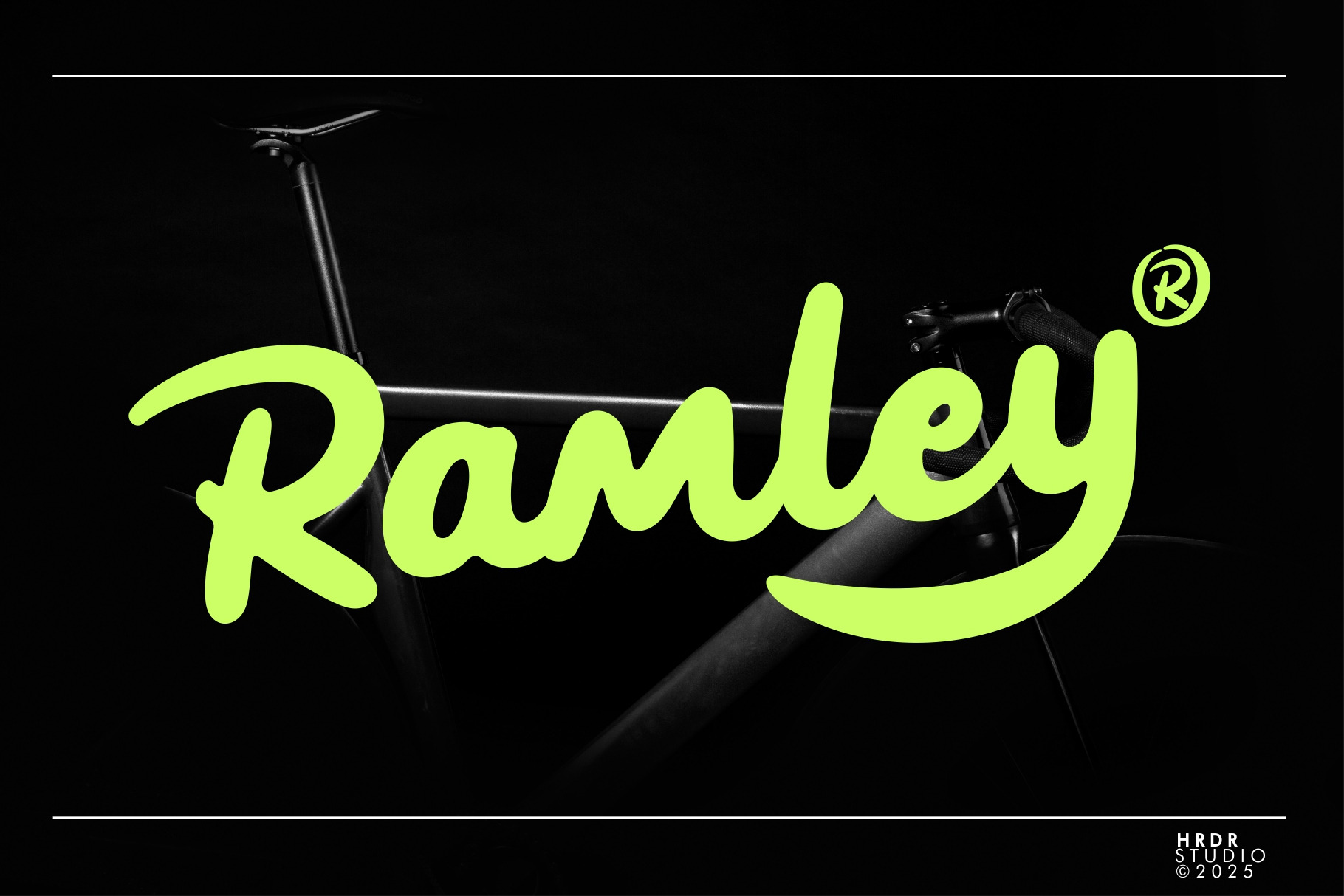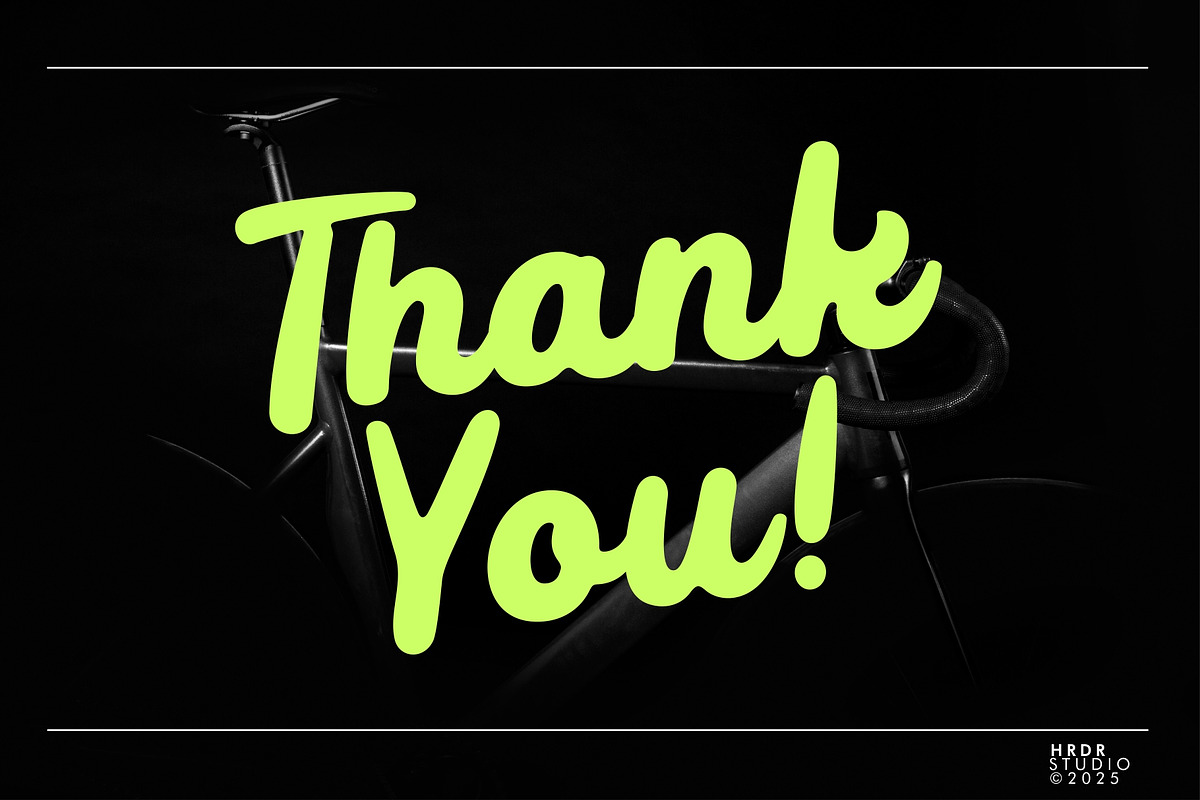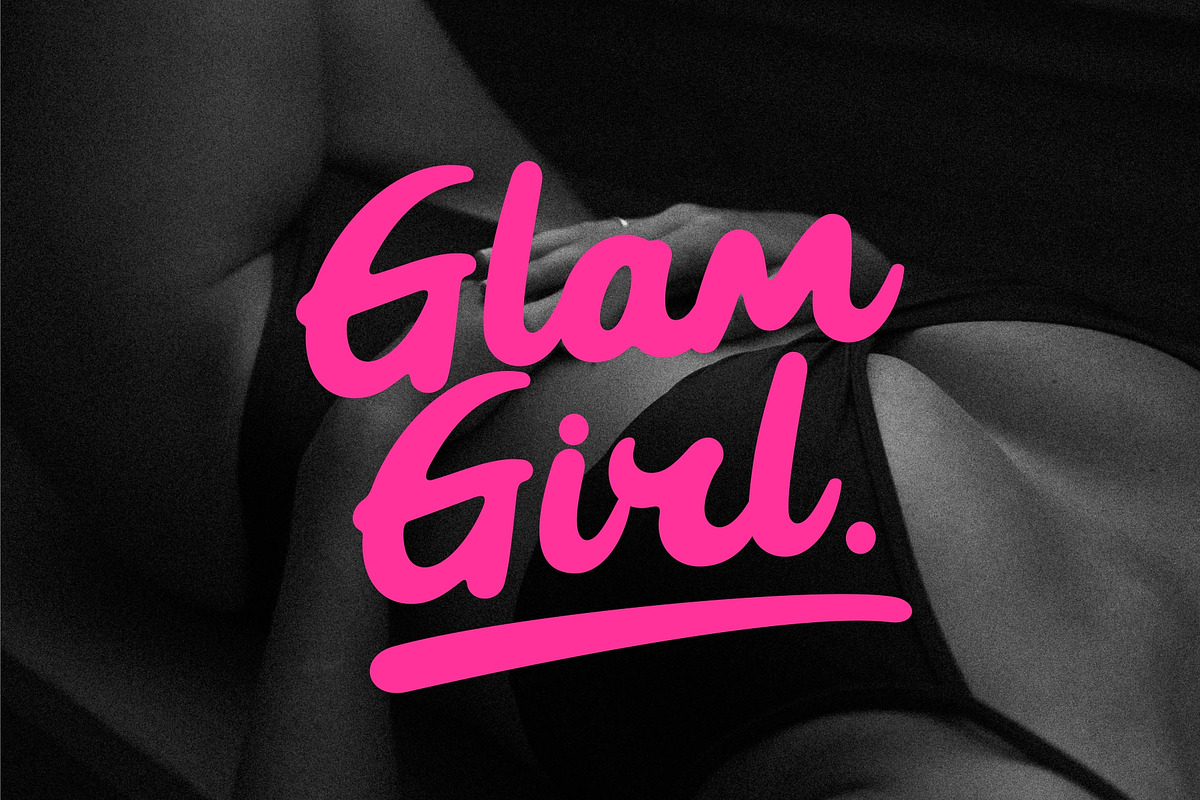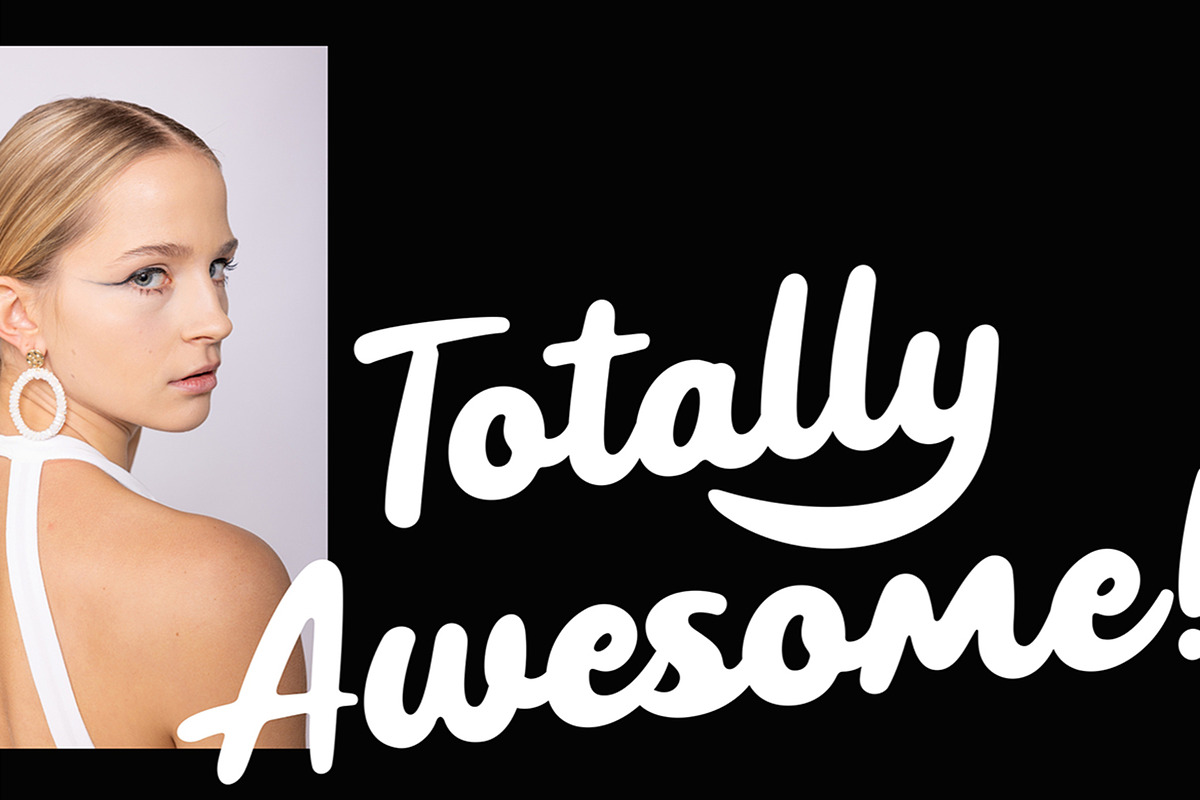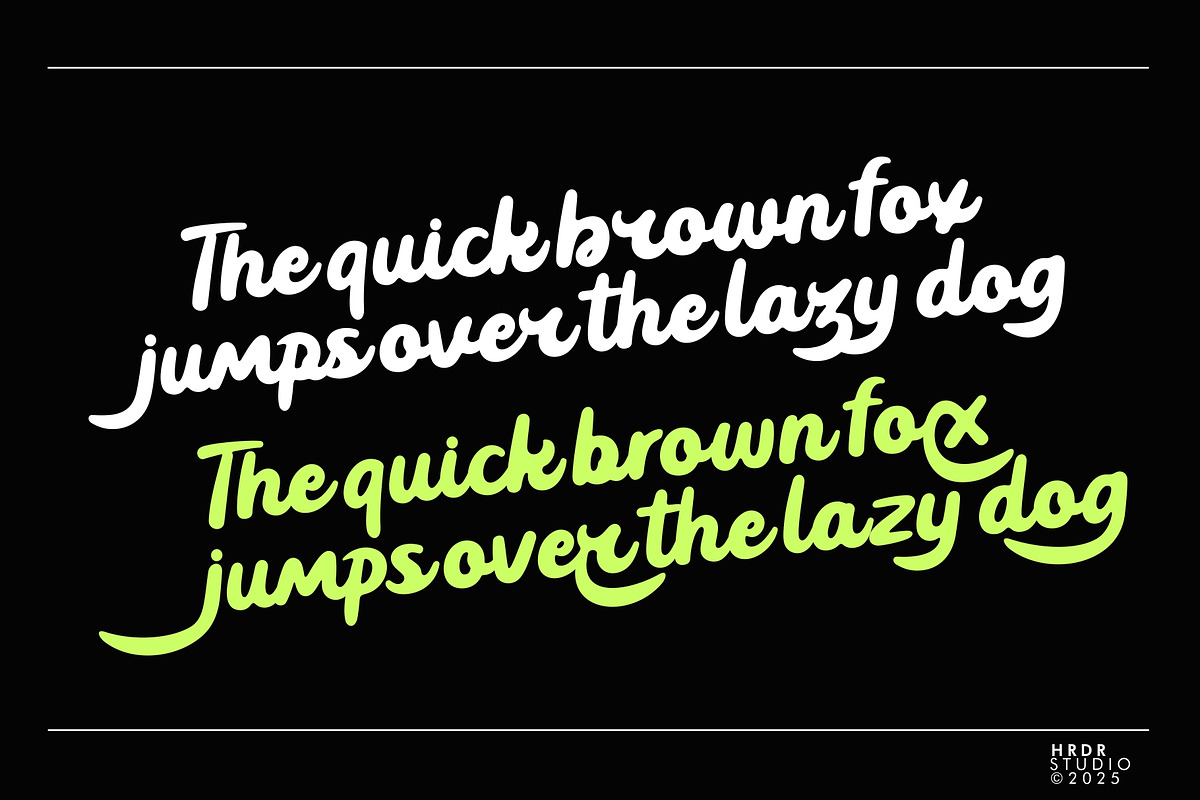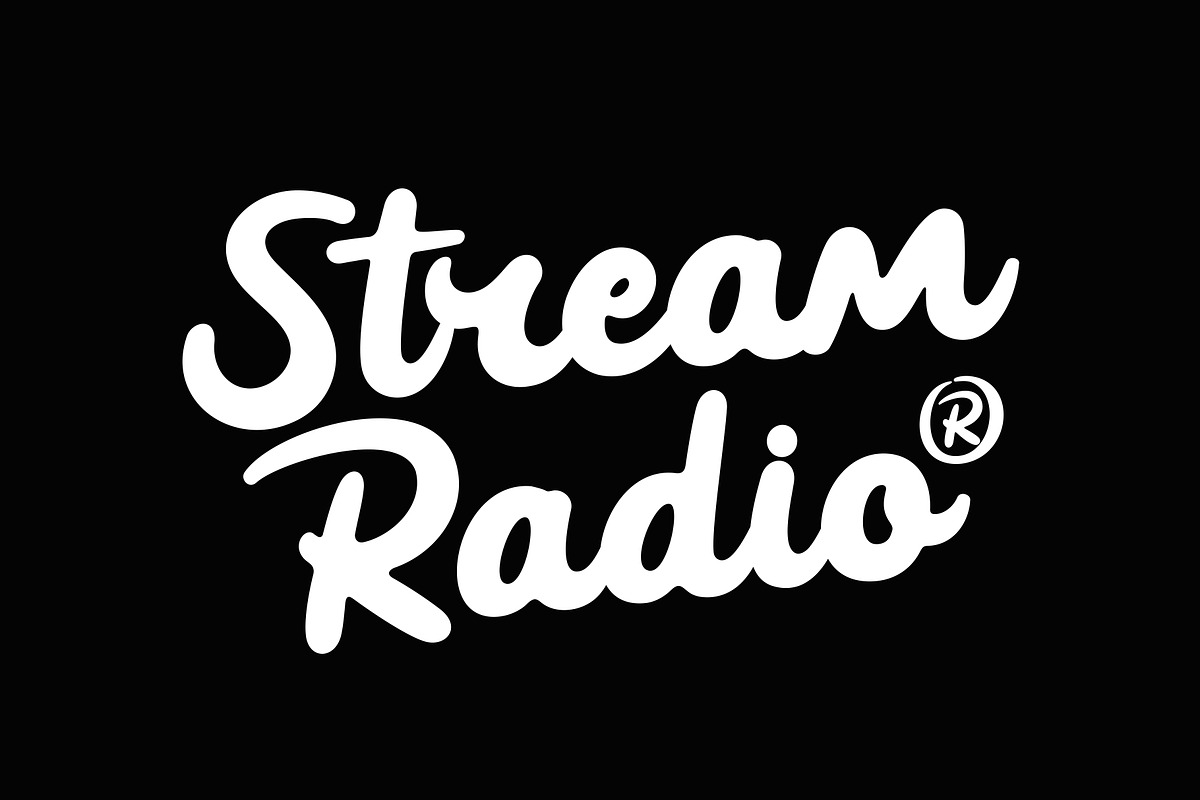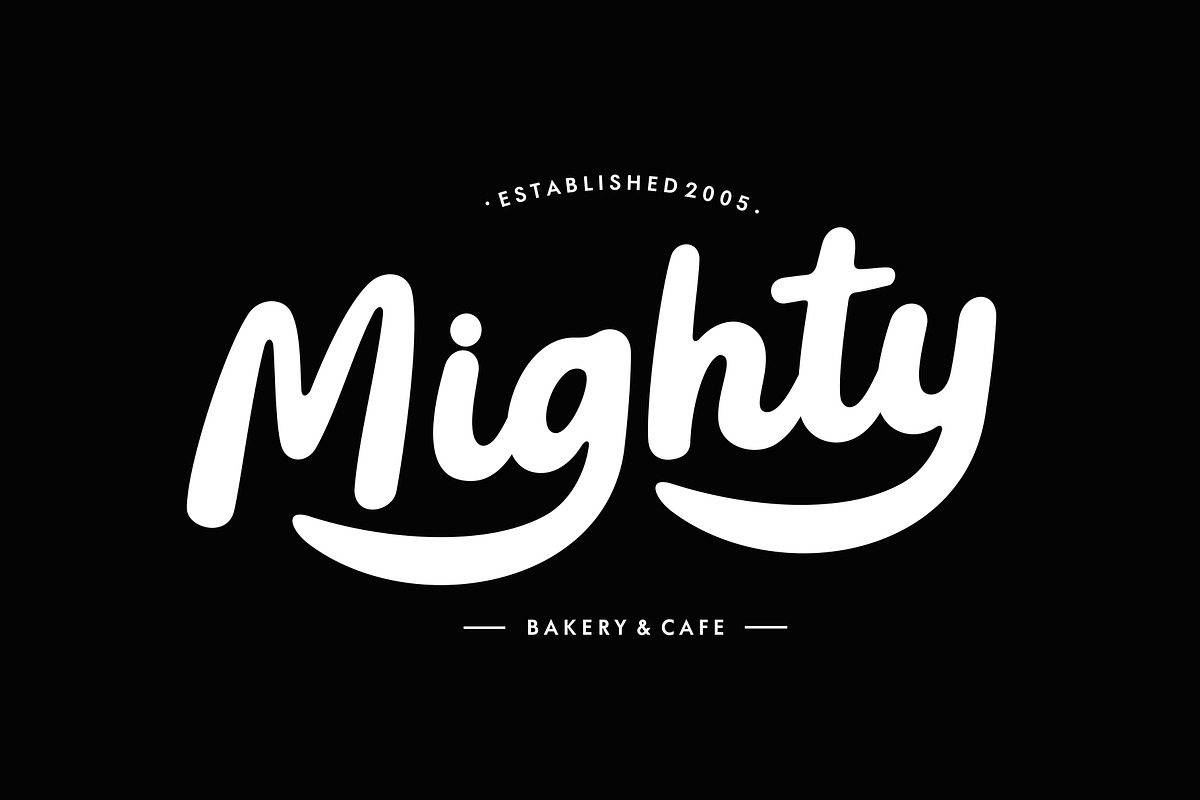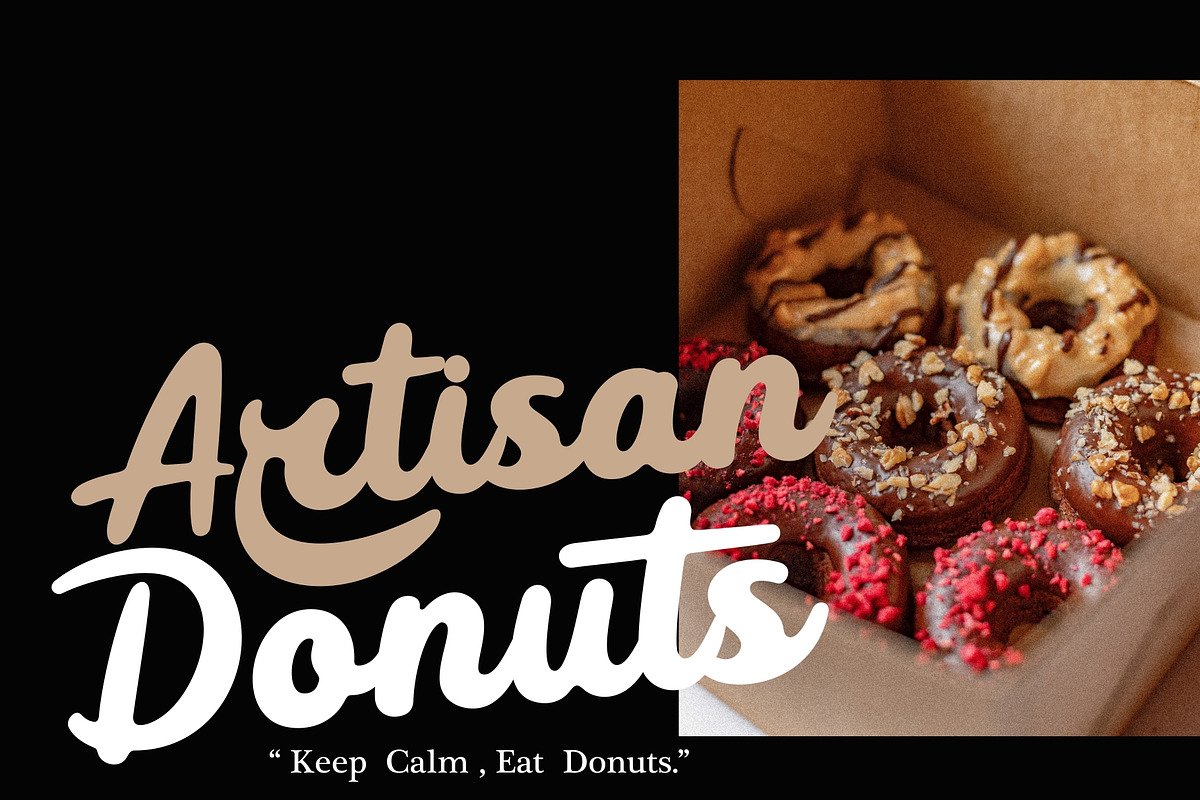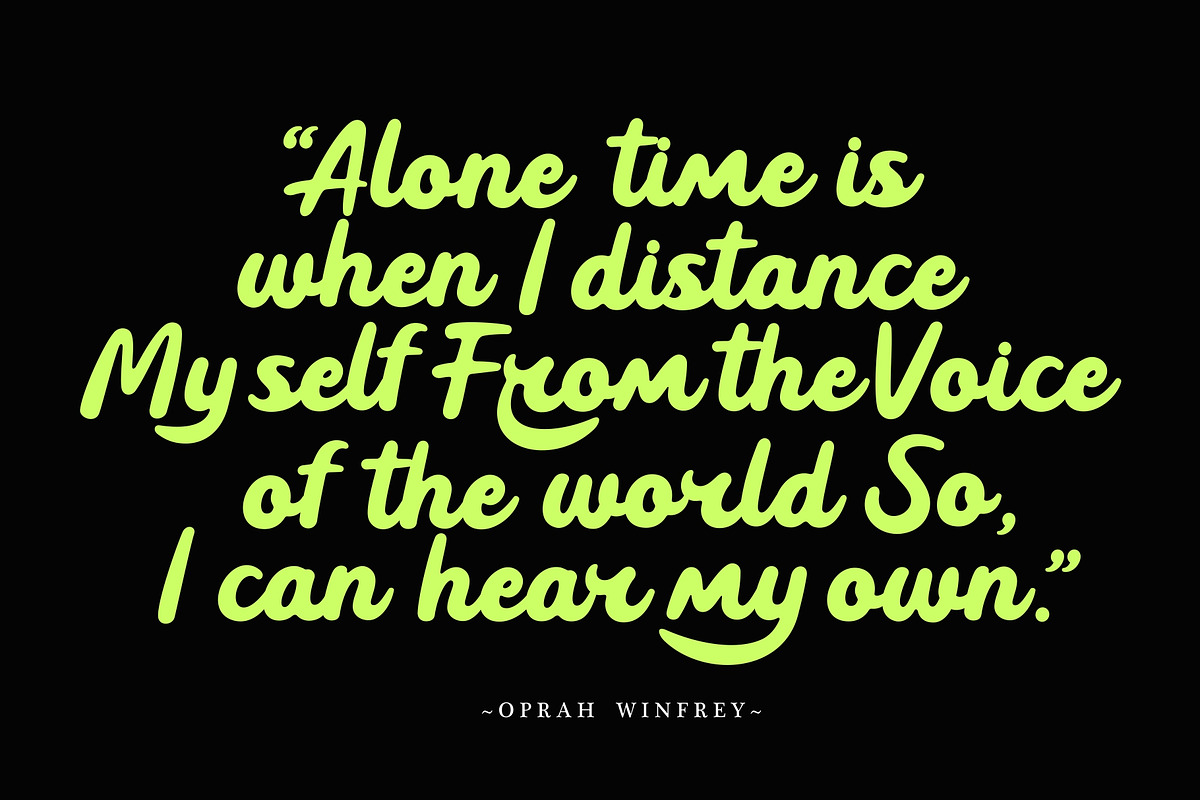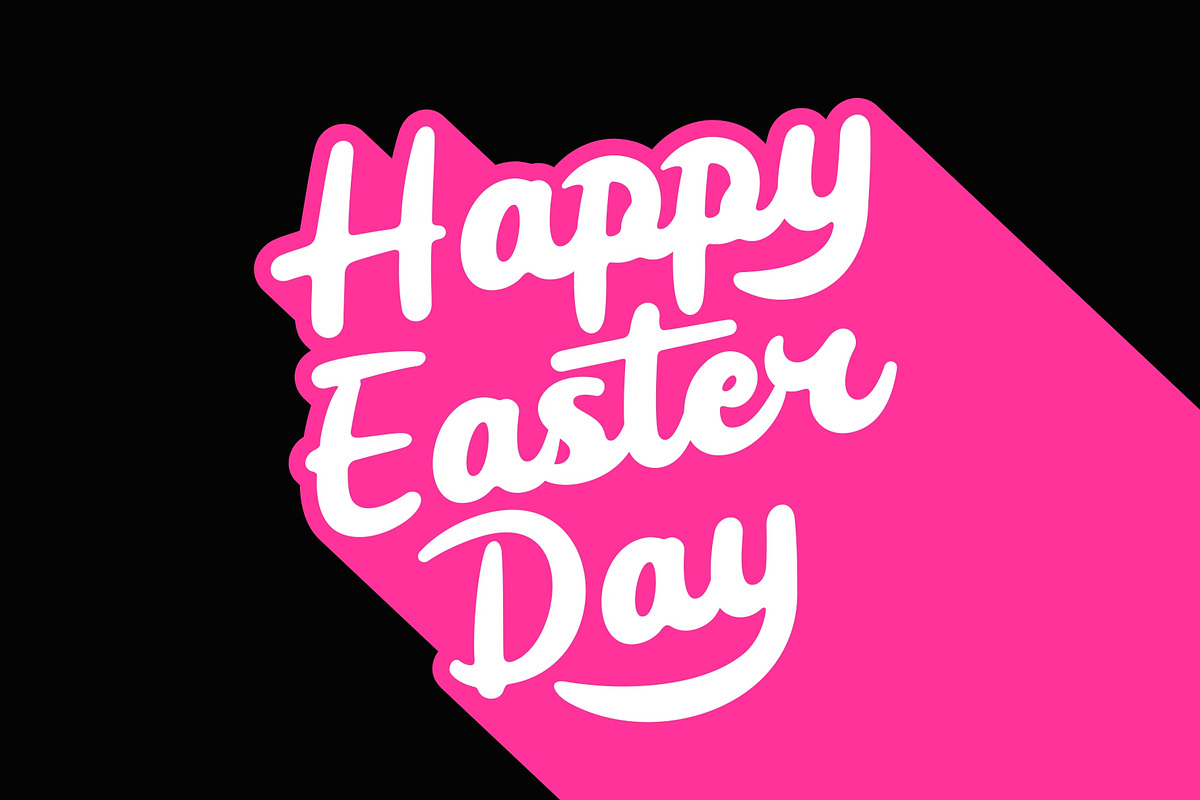
Ramley - Elegant Font
Ramley is an elegant handwritten font with a simple, refined style, perfect for numerous design projects. Ideal for crafting, branding, invitations, stationery, wedding designs, social media posts, advertisements, product packaging, label design, posters, photography, and special events, this versatile font will add a personal touch to your creative work.
- numeric & Multilingual support
- Stylistic Alternates with Ss01 & Ss02